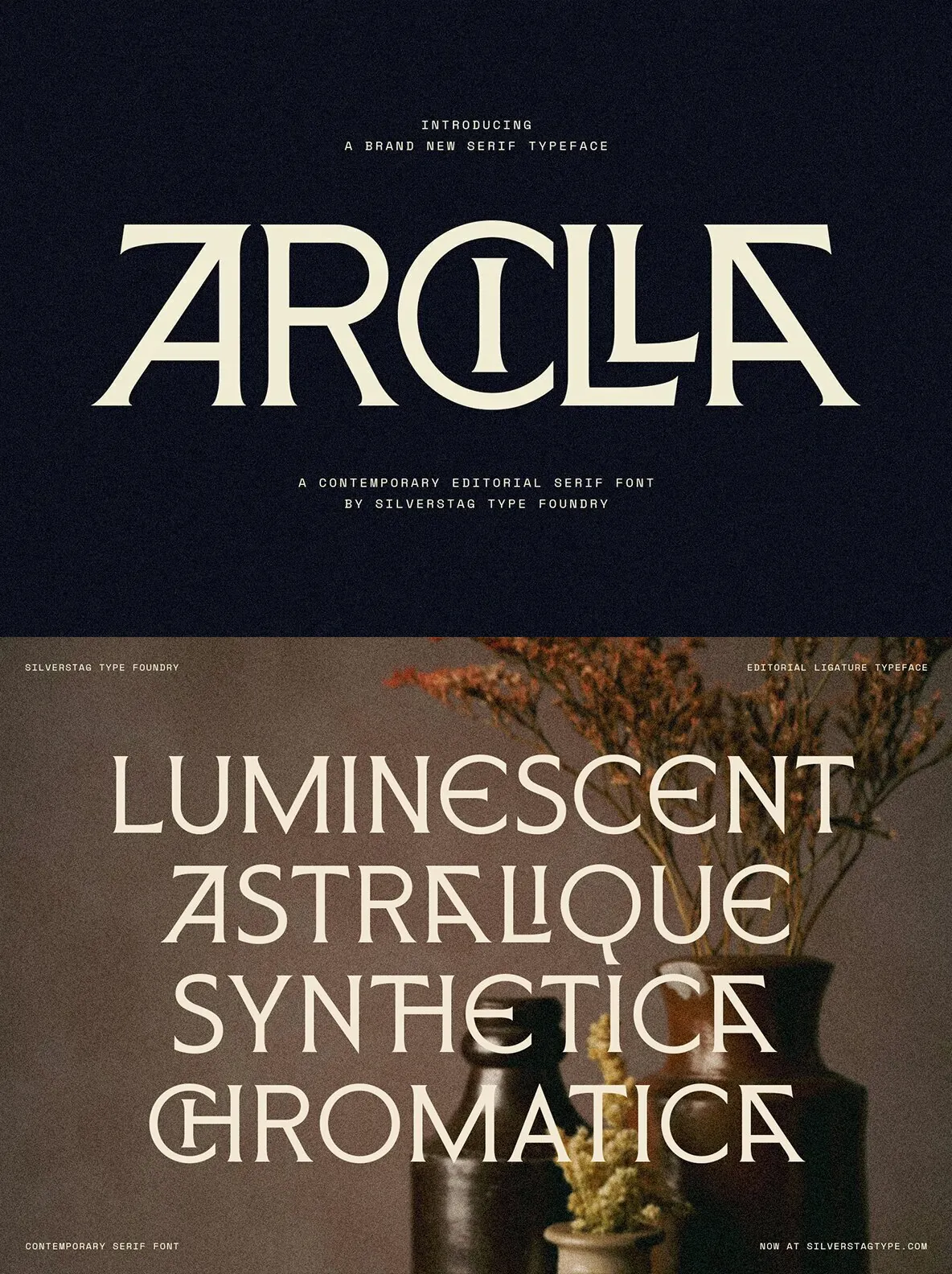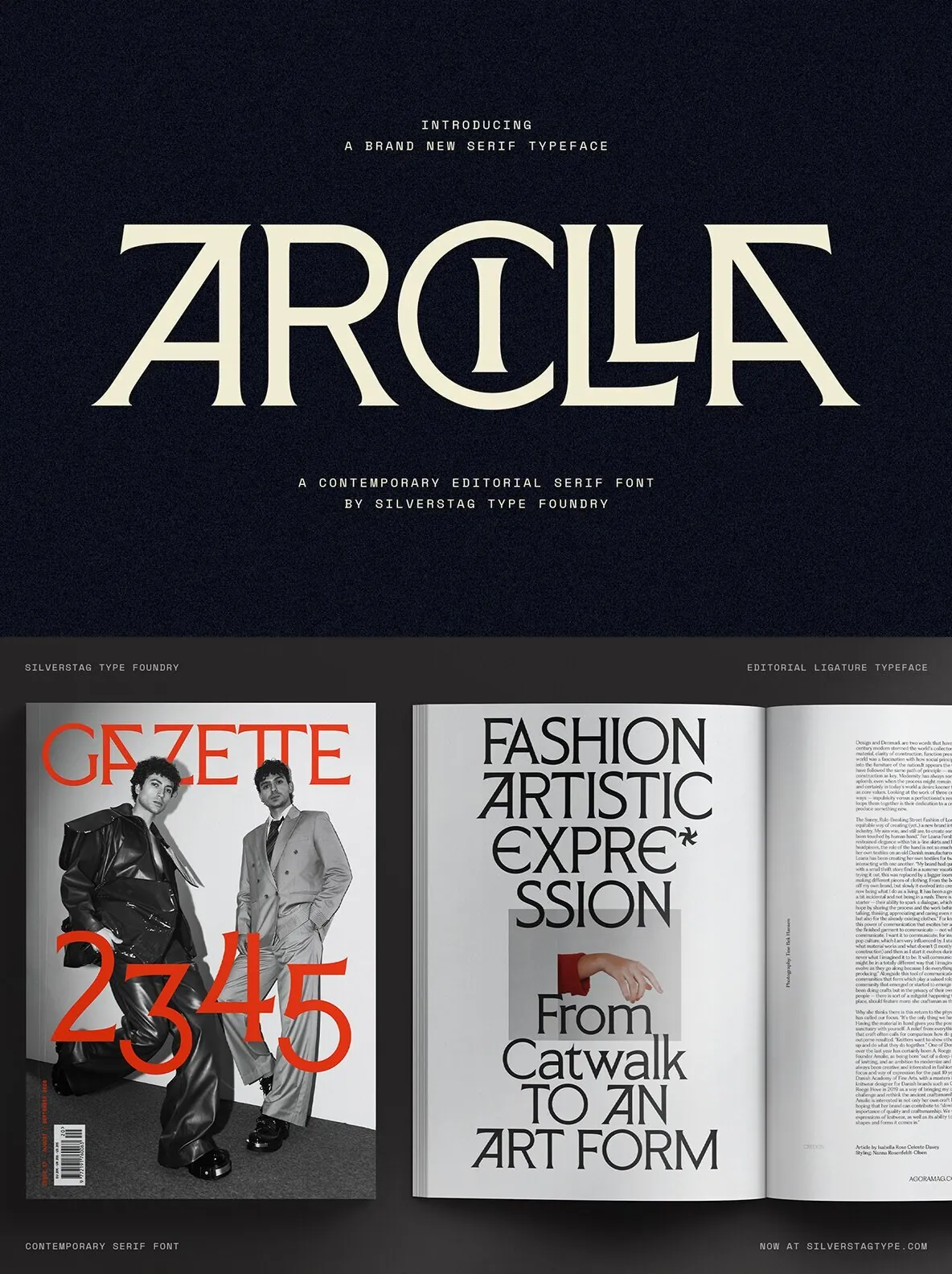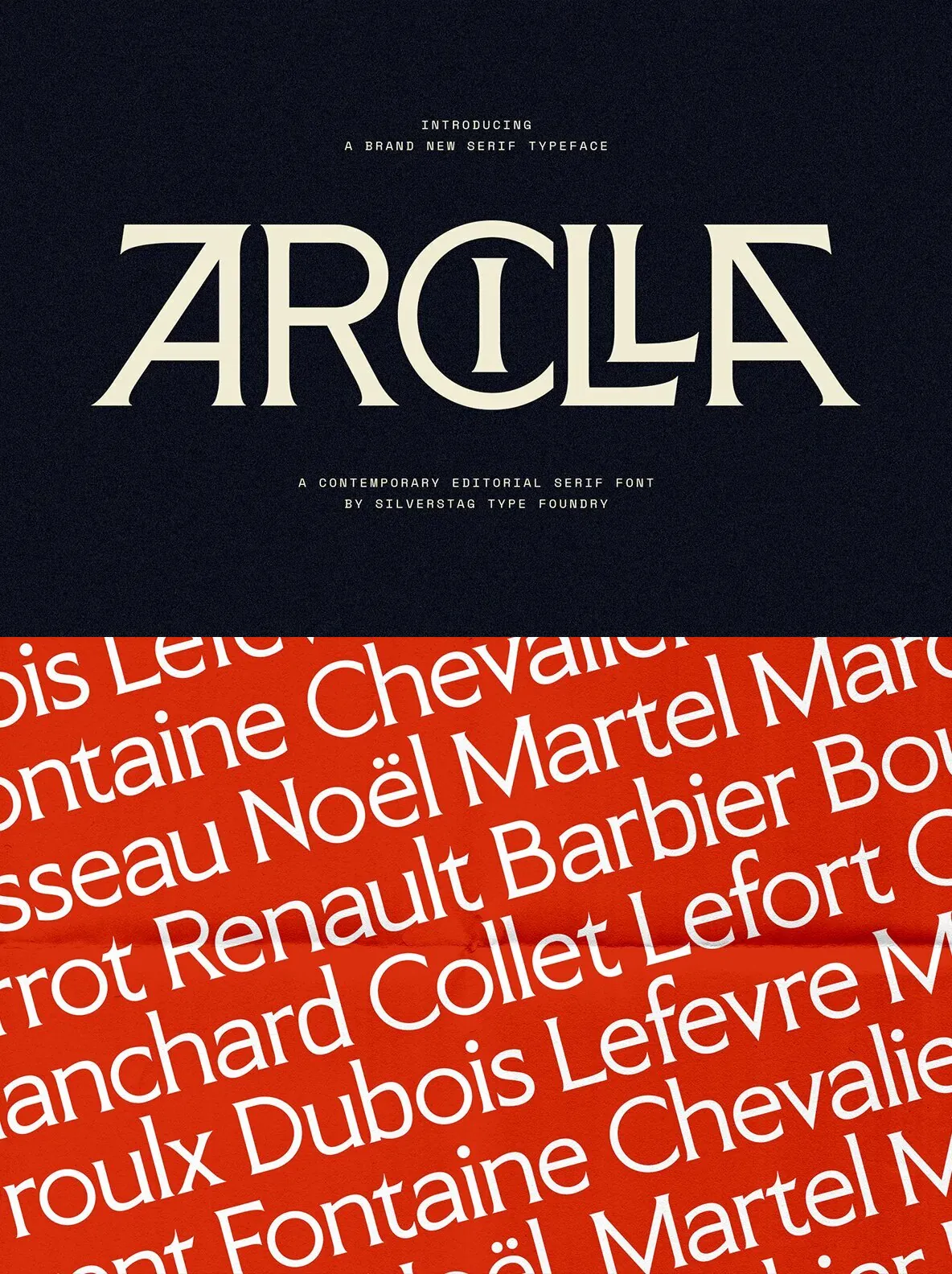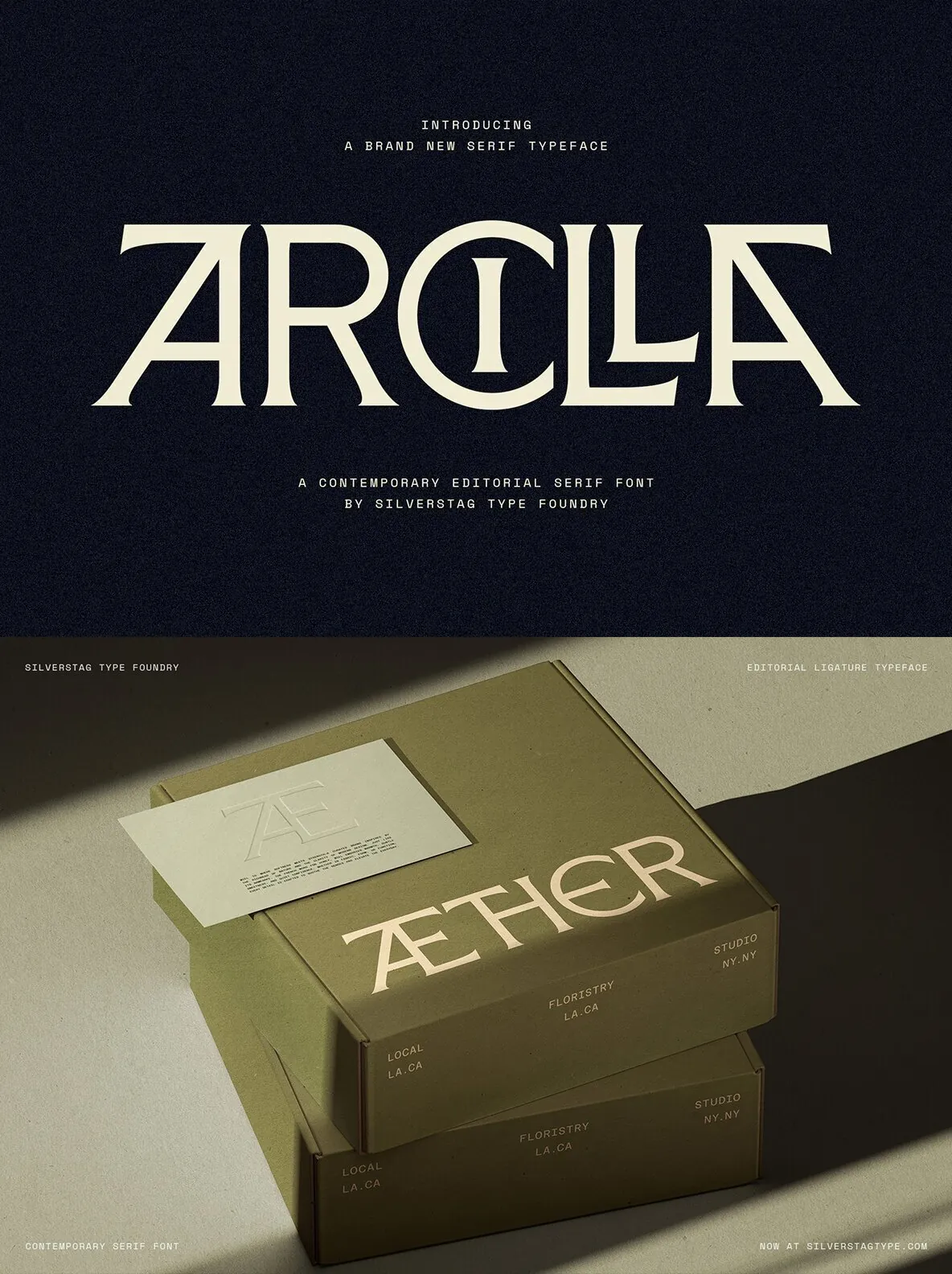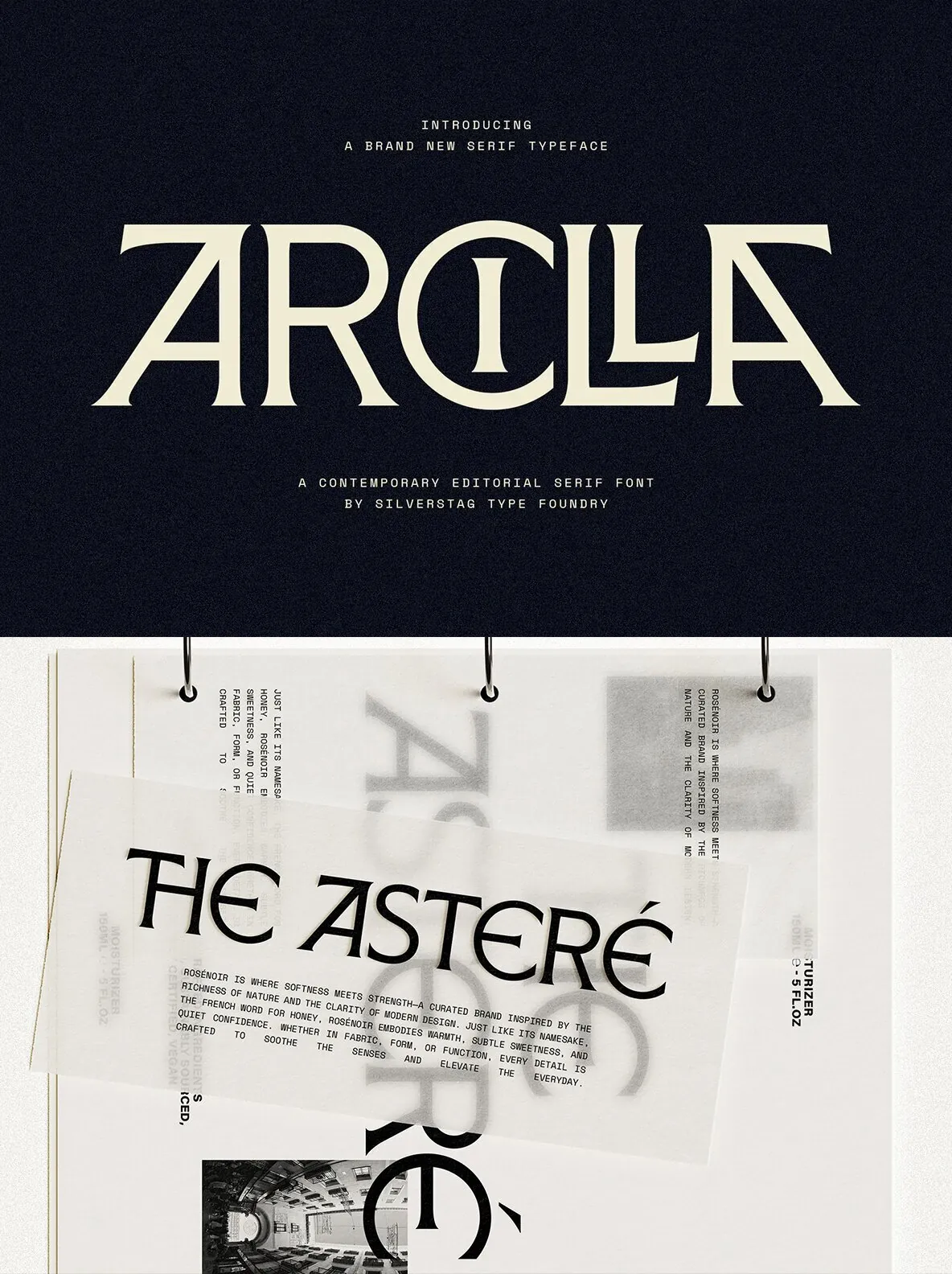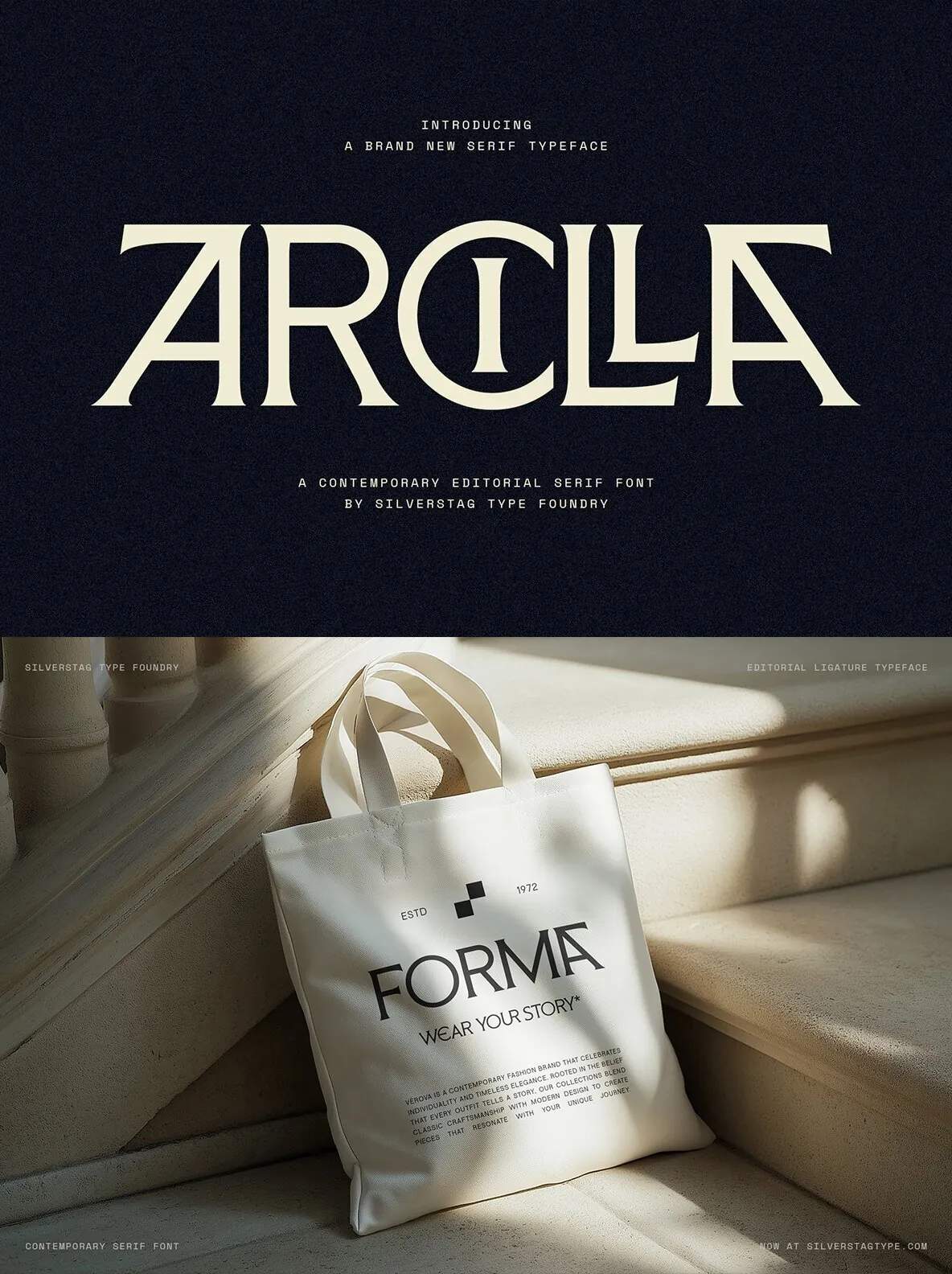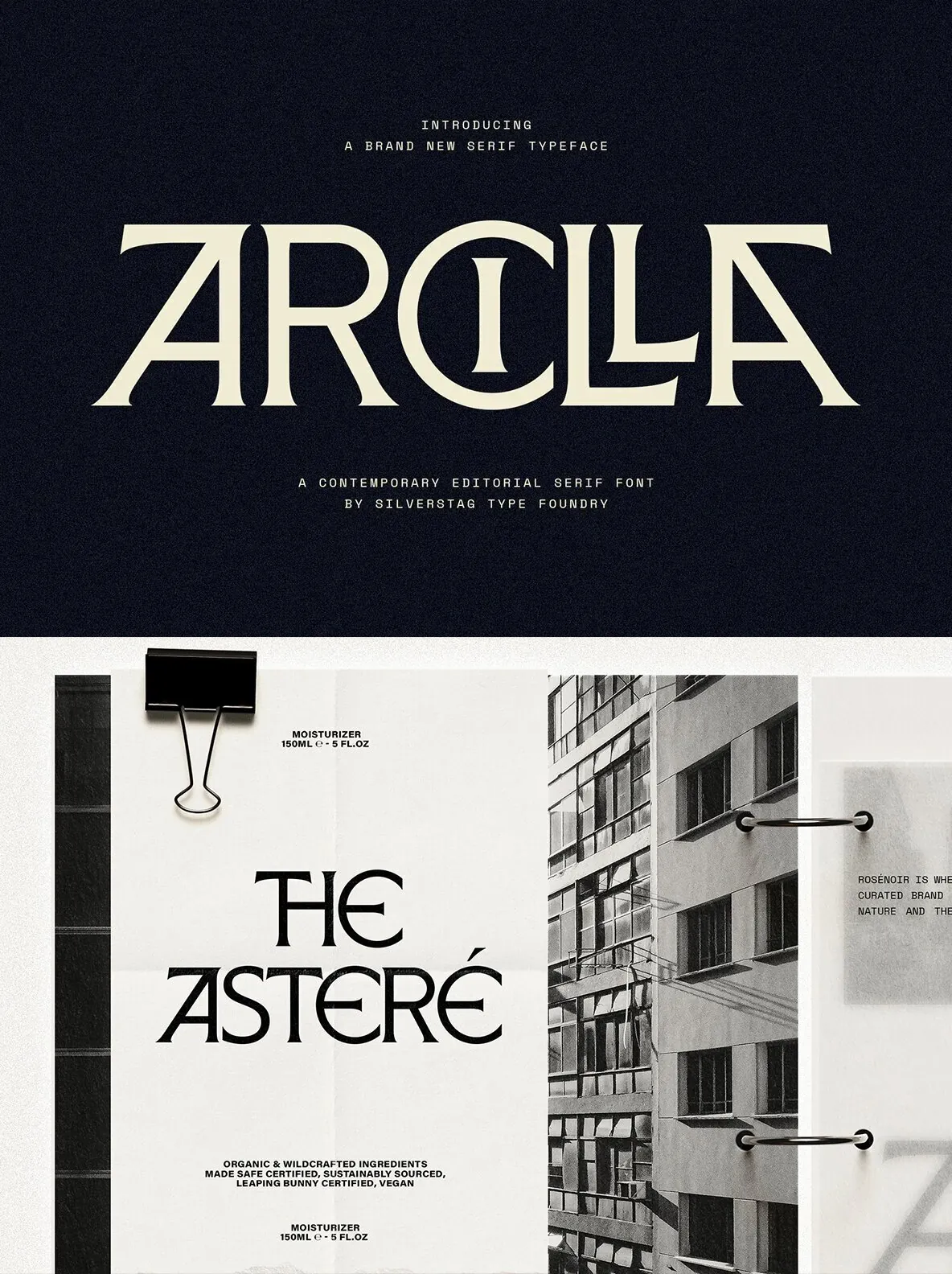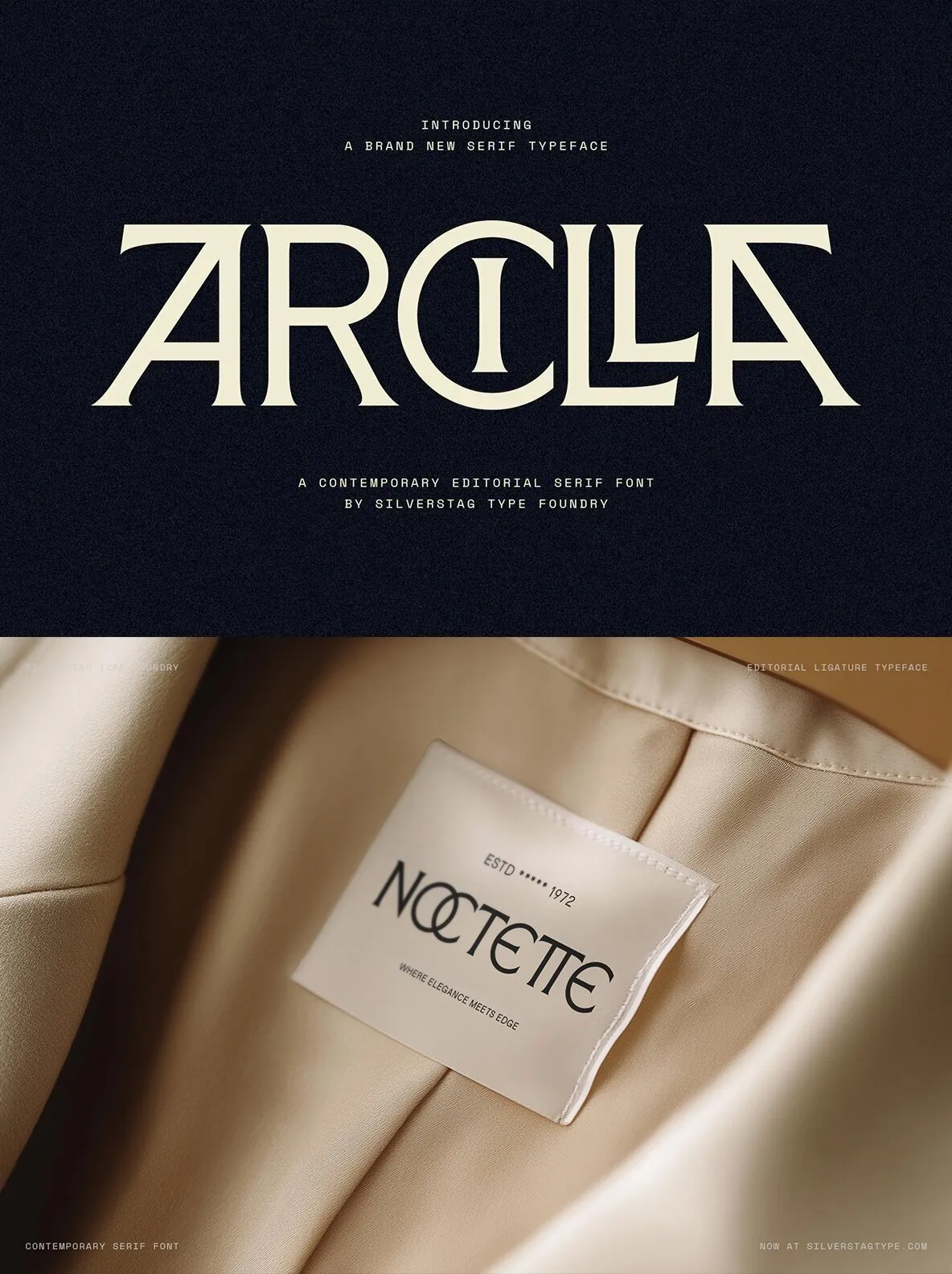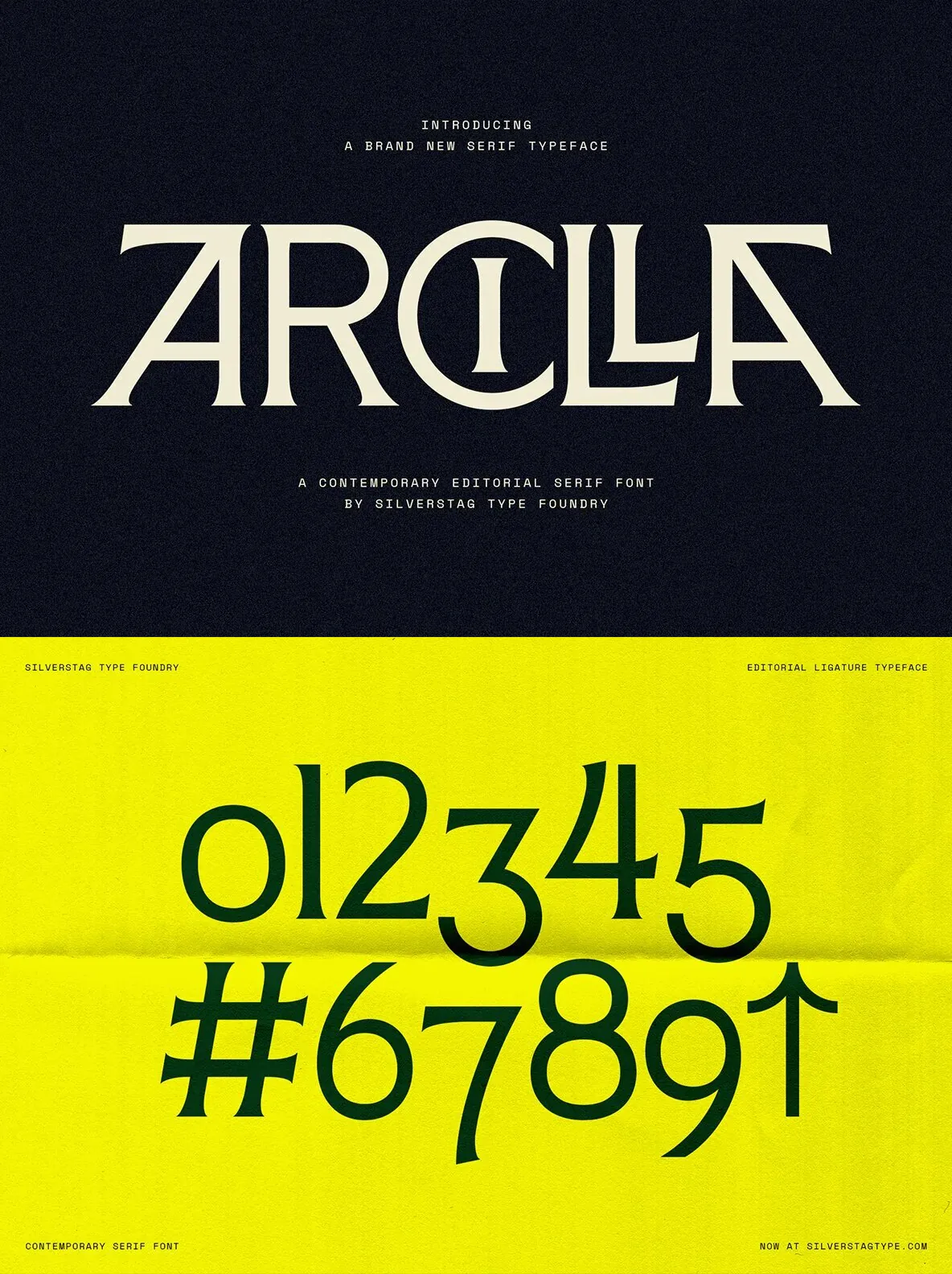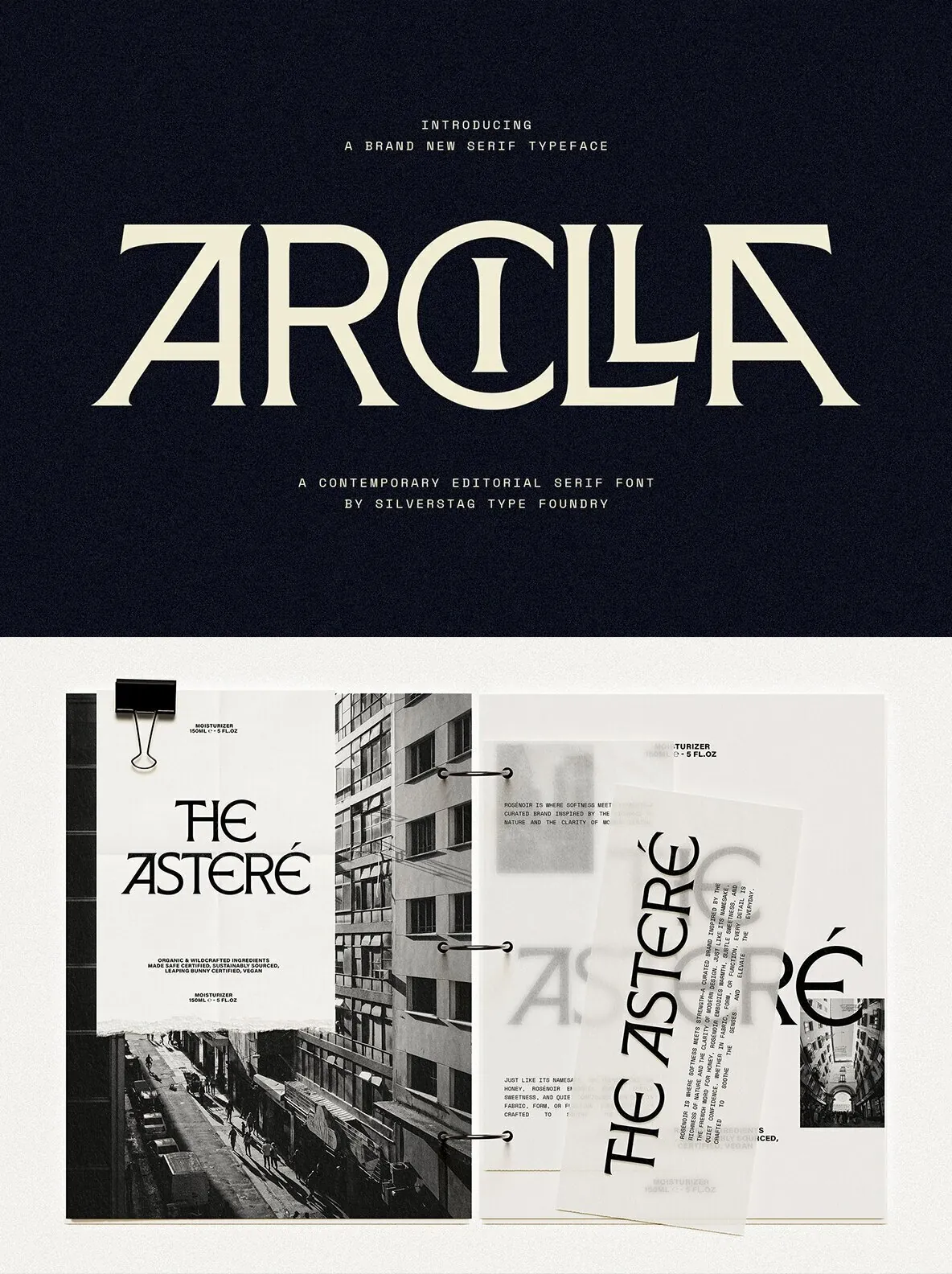
Arcilla — Editorial Presence, Sharpened
SLTF Arcilla is a modern serif typeface made for designers who want an editorial look with distinct visual character. Crisp structure meets sculpted details to create a serif with clear personality. Use it in branding, visual identities, and creative projects where type needs to stand apart without losing readability. Arcilla’s clean approach and strong forms suit contemporary aesthetics and layouts that demand visual clarity.
Sharp angles and smooth curves define Arcilla’s silhouette. Refined terminals add a sculptural effect, while unique ligatures and alternates give you expressive options for custom wordmarks and distinctive typographic treatments with minimal effort. Arcilla works especially well for fashion brands, lifestyle products, print magazines, packaging, and digital platforms where typography should feel polished and intentional.
Uppercase and lowercase letters
Numerals and full punctuation set
Multilingual support for international projects
Curated ligatures and alternates for expressive display use
Arcilla performs reliably across sizes, keeping its clarity in headlines and smaller editorial layouts. Its modern tone and steady structure make it a practical choice for designers focused on editorial typography and branding systems.